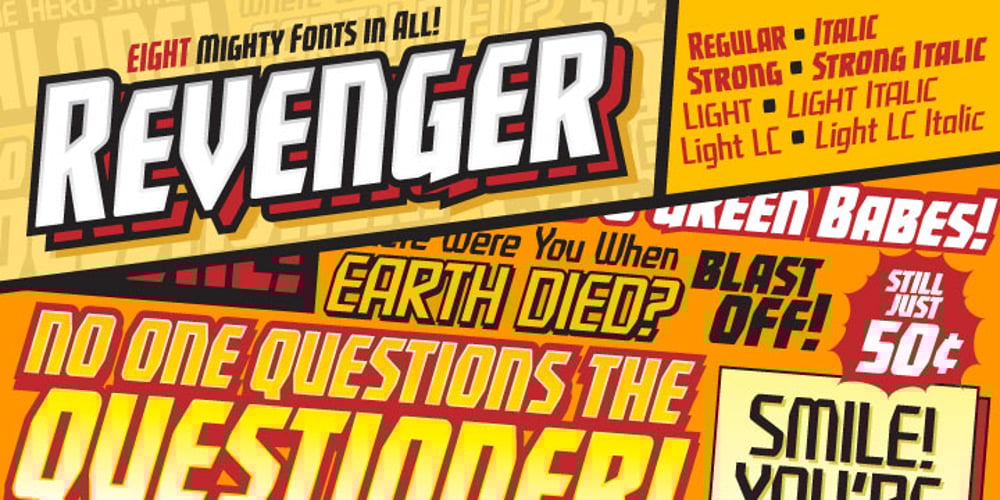
Revenger BB
Revenger BB font
Revenger BB Font Family was designed by Nate Piekos and published by Blambot. Revenger BB contains 16 styles and family package options. Revenger BB is a classic comic title font family that comes with eight variations: Regular, Italic, Light, Light Italic, Light LC, Light LC Italic, Strong, and Strong Italic.